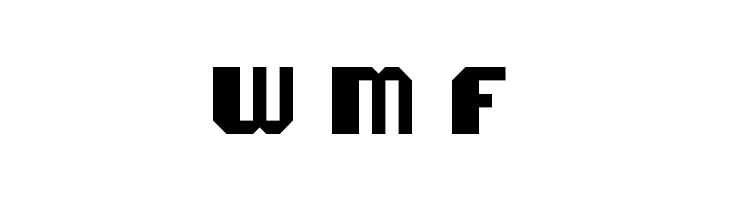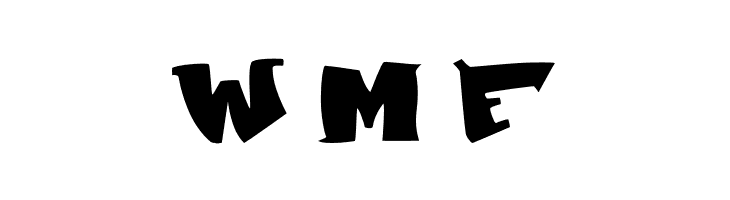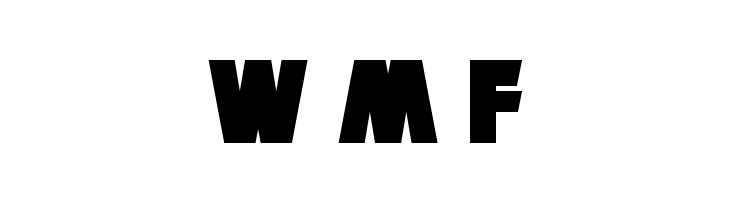
A modern, geometric font with rounded edges and a minimalist aesthetic.
An illustrative, collage-style decorative font with surreal and dark imagery.
Ornate Viking-inspired pictorial font with detailed illustrations.
A bold, modern font with geometric structure and high contrast.
A lively and expressive handwritten font with dynamic strokes and playful elegance.
A bold, graffiti-inspired font with dynamic and playful characters.
A futuristic, angular font with sharp edges and geometric shapes.